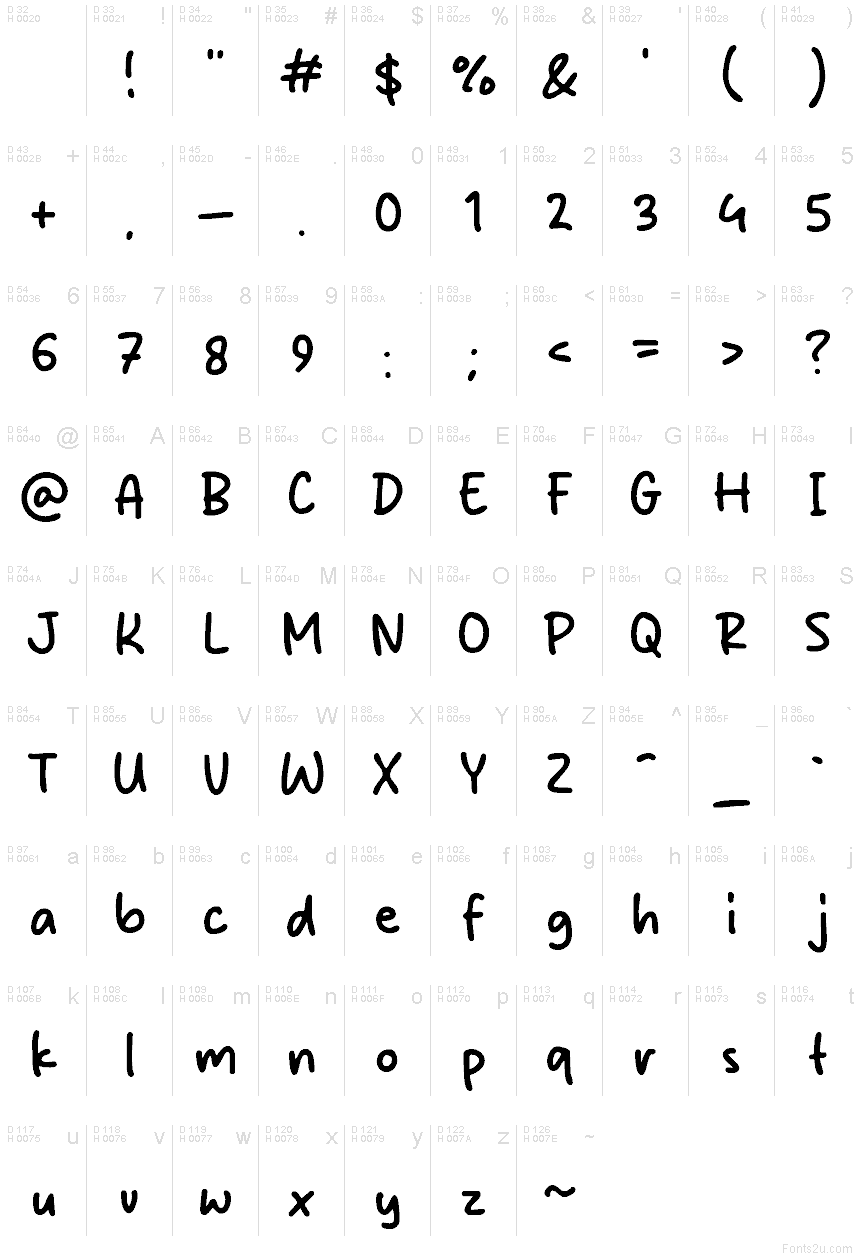
Mistake Note
Mistake Note font by MJType is a free playful handwritten display font. Rounded, chunky strokes and a gentle bounce give it that “written with a thick felt-tip” feel—friendly without getting sloppy. Letters sit close with a steady rhythm, so headlines pop and short lines read like quick notes pinned to a board.
Using Mistake Note, projects that need warmth and clarity shine: classroom posters, worksheets, kids’ activity sheets, bullet journals, stickers, social graphics, and YouTube thumbnails. This free font brings approachable energy to packaging and captions, too. Pair it with a clean sans for body copy, and set it a touch larger to let the soft curves breathe.